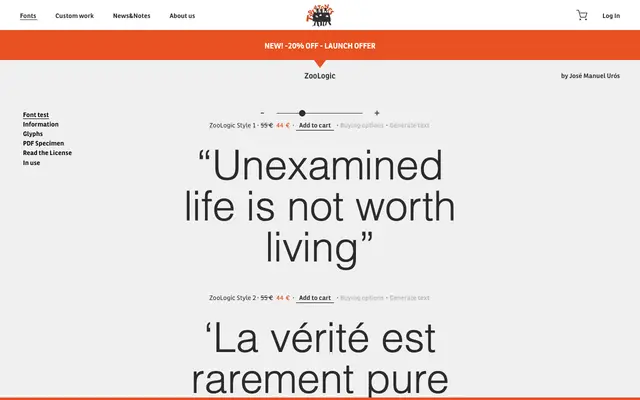
ZooLogic
A three-style display family by José Manuel Urós, sold individually or as a complete set at a launch discount.
ZooLogic comprises three distinct styles designed by José Manuel Urós and released by Type-ø-tones. Each style is priced separately at 55 euros, with a 20% launch discount applied across the family. The specimen phrases suggest a literary or editorial sensibility, though the name and multi-style structure point to an expressive, decorative character.
The name, three distinct styles and specimen presentation suggest an illustrative or novelty display typeface; insufficient detail to assign a more specific subcategory beyond display.